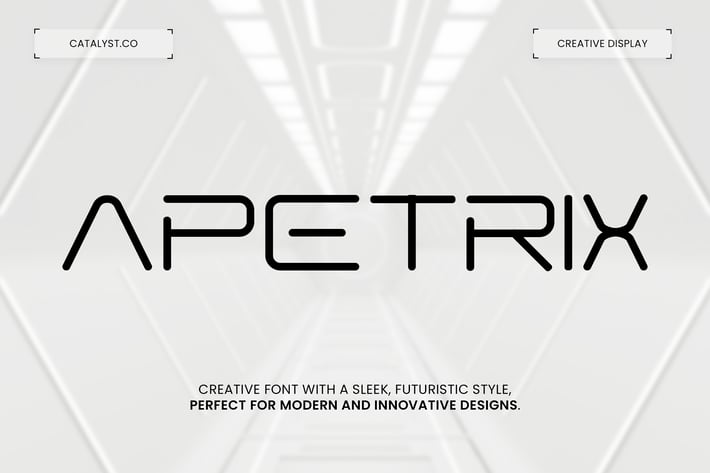
Apetrix Futuristic Display Font
Apetrix Modern Futuristic Font is a futuristic display font with high-tech character and innovative letterforms. The sleek lines and geometric structure give it a clean, contemporary look—ideal for technology fonts, sci-fi interfaces, cyberpunk visuals, or space font projects. Apetrix is perfect for modern branding, digital product design, technology logo, and anything that needs a bold yet elegant futuristic touch. Its creative character set blends minimalist font design with dynamic curves, ready for both print and screen environments.